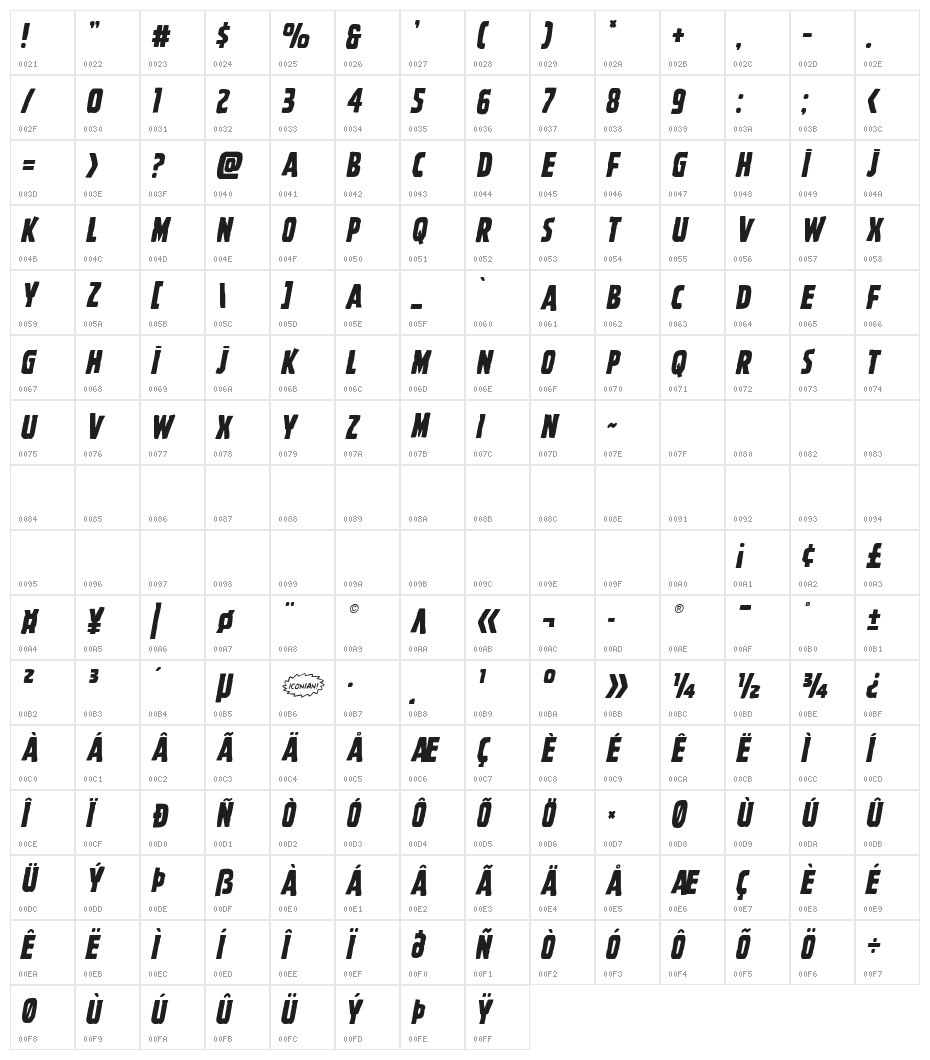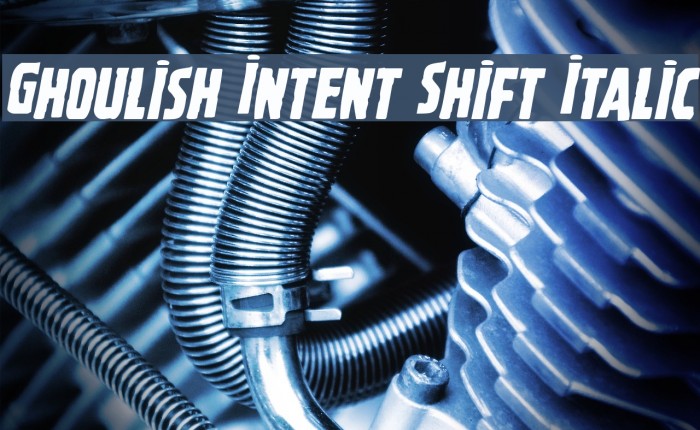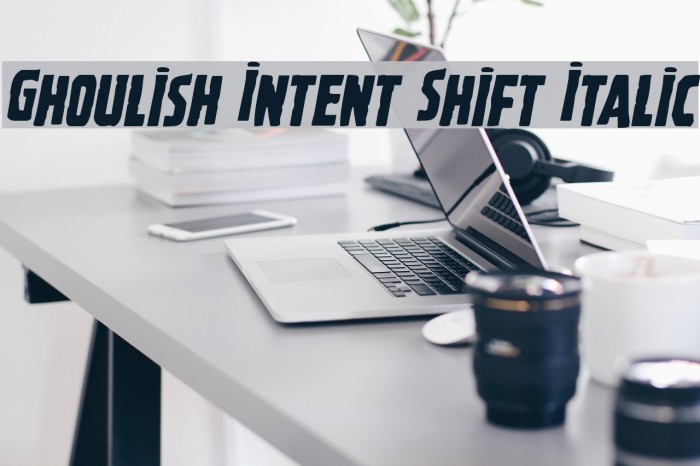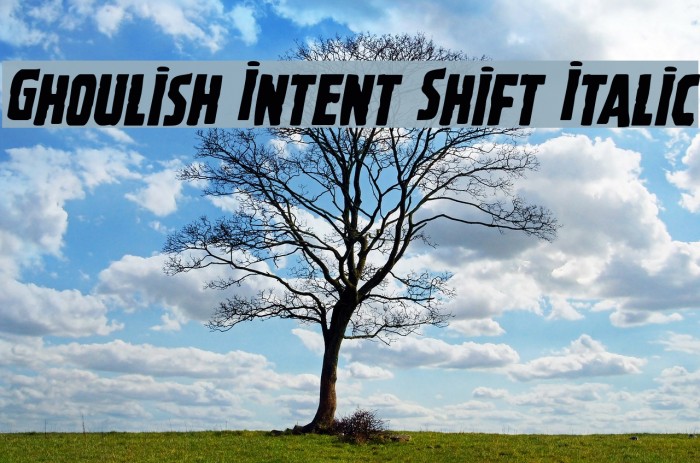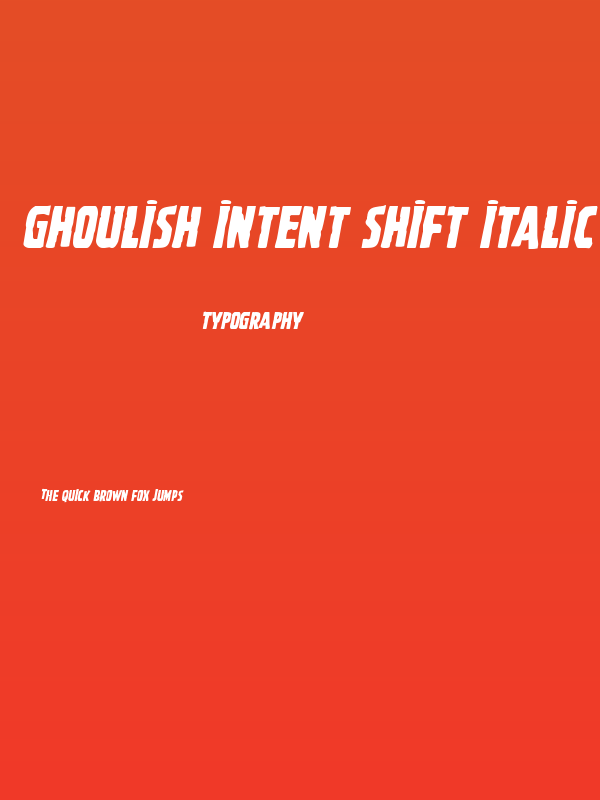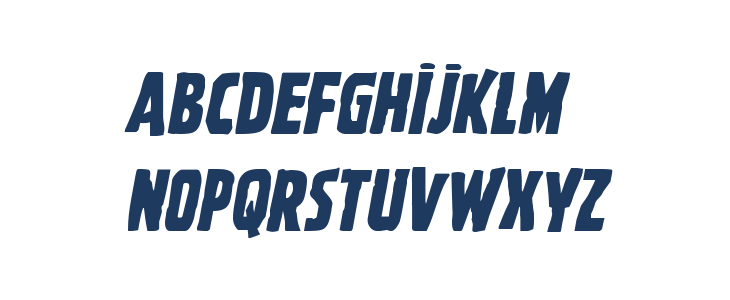
Ghoulish Intent Shift Italic Font
Ghoulish Intent Shift Italic Description
This font features a bold, italicized style with a distinct slant, giving it a dynamic and energetic appearance. The characters are thick and robust, with sharp angles and a slightly condensed form. The uppercase and lowercase letters maintain a consistent style, while the numbers and special characters complement the overall design. The font's boldness and slant make it suitable for attention-grabbing headlines and impactful designs. Its unique style is both modern and slightly edgy, making it ideal for projects that require a strong visual presence.
Overall StyleModern, Edgy
Proposed ProjectsIdeal for posters, logos, branding, and any design requiring a bold statement.
AuthorFonts by Iconian Fonts